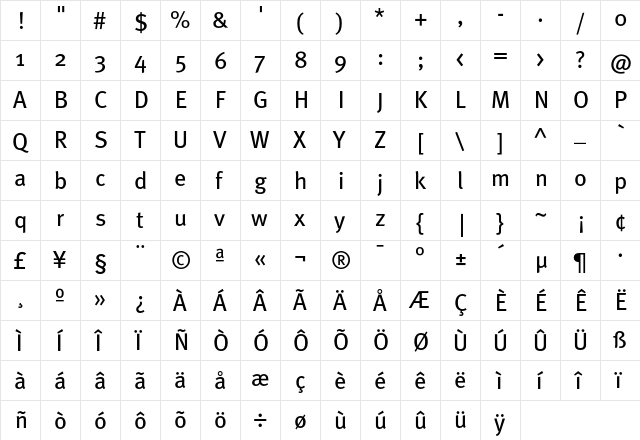
MetaBookTurk Roman
Design Context for MetaBookTurk Typeface
MetaBookTurk is a composed and adaptable typeface that performs quietly and consistently across a wide range of design contexts.